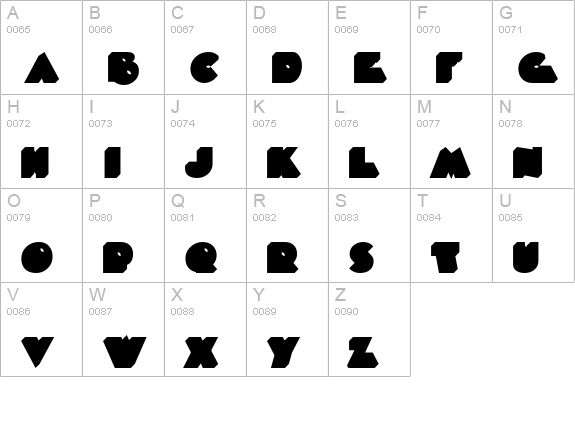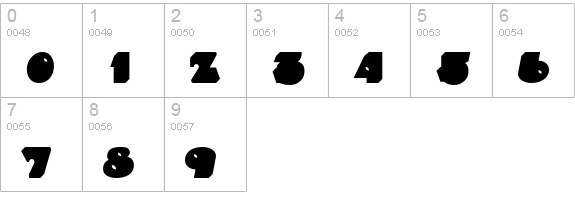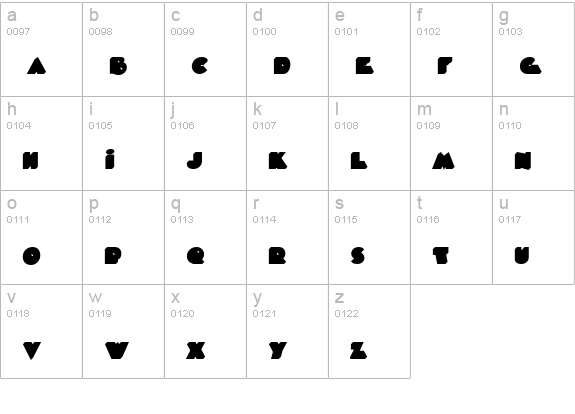
Timepiece 3D BackFill Font Details
Introducing the mesmerizing Timepiece 3D BackFill font, a true masterpiece in the world of typography. This font is a perfect blend of modern innovation and vintage elegance, making it a must-have for designers and creatives alike. With its intricate three-dimensional design, Timepiece 3D BackFill font adds a touch of depth and dimension to any project. Each letter is meticulously crafted, showcasing stunning details that create a sense of realism and sophistication. This font effortlessly captures attention and leaves a lasting impression on anyone who encounters it. What sets Timepiece 3D BackFill font apart is not just its incredible design, but also the fact that it is freely available to download at FontsMarket.com. Yes, you read that right – this remarkable font can be yours at absolutely no cost. It's a rare gem in the world of typography, where premium quality often comes with a hefty price tag. Whether you're working on a branding project, a logo design, a poster, or any other creative endeavor, Timepiece 3D BackFill font will elevate your work to new heights. Its versatility allows it to seamlessly integrate into various design styles, from bold and edgy to elegant and refined. The attention to detail and the meticulous craftsmanship of Timepiece 3D BackFill font can be seen in every curve and contour, making it a true work of art. This font effortlessly captures the essence of time, evoking a sense of nostalgia and sophistication. So why wait? Download Timepiece 3D BackFill font today at FontsMarket.com and unleash your creativity. It's your chance to add a touch of timeless elegance to your designs, all while enjoying the freedom of having this exceptional font at your fingertips. Don't miss out on this incredible opportunity to elevate your typography game – get Timepiece 3D BackFill font now and let your creativity shine.